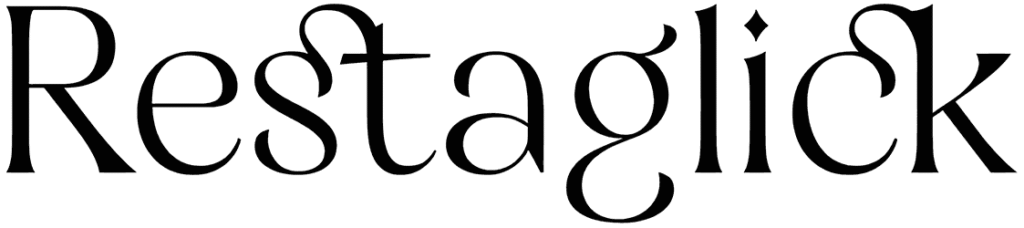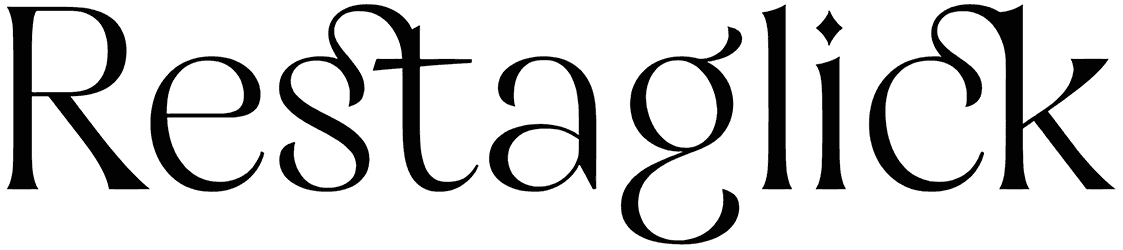
Restaglick Font
There’s no better feeling than seeing that spark of satisfaction in your clients’ eyes when you hand them your designed logo. You can see what we’re talking about if you use Restaglick for your next branding projects.
As a great way to make things look fancier, this serif font is also designed as a ligature font to keep things in good taste. That’s just more reasons for you to use Restaglick as business cards for talent agencies, video editing, etc.